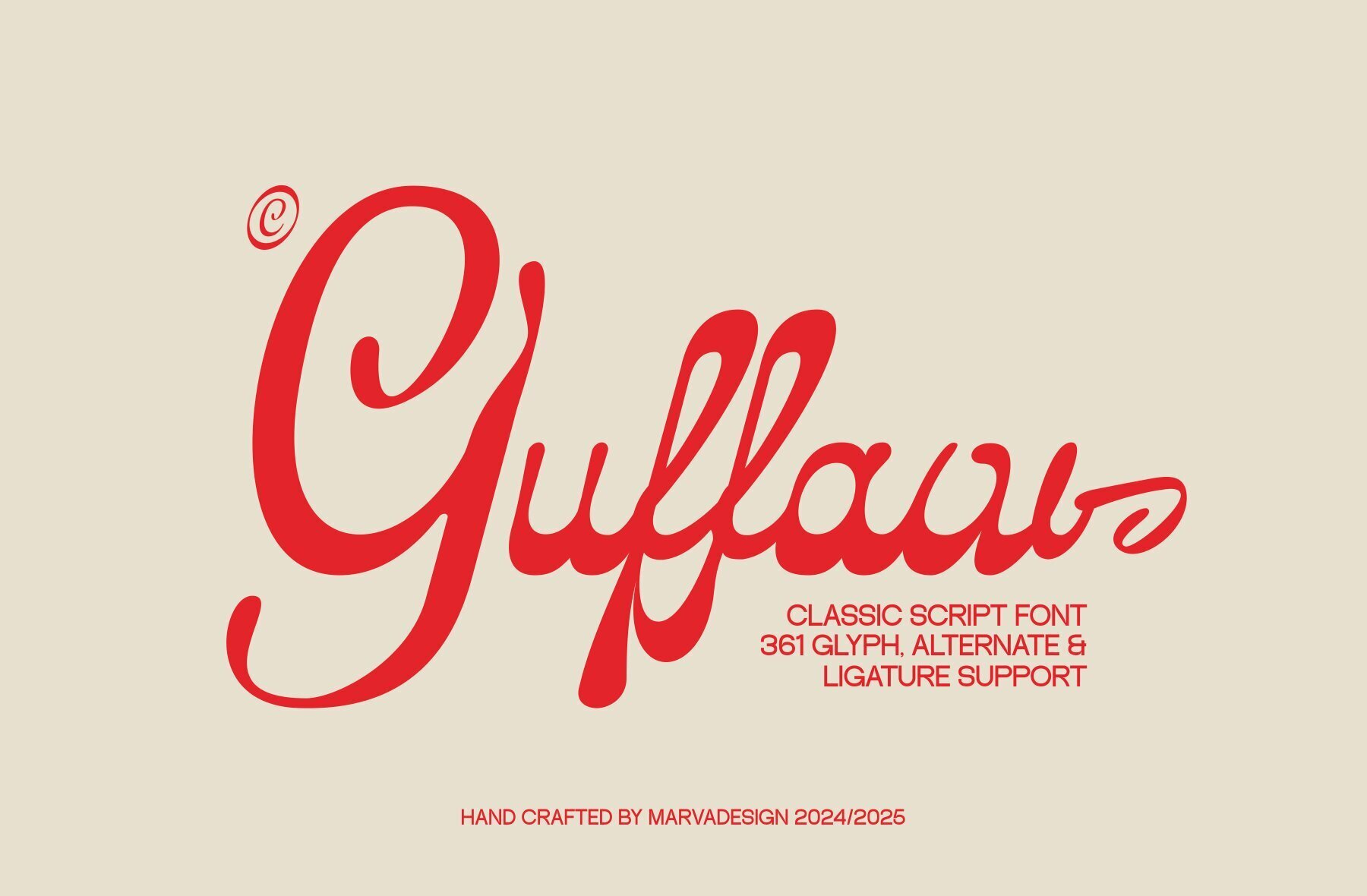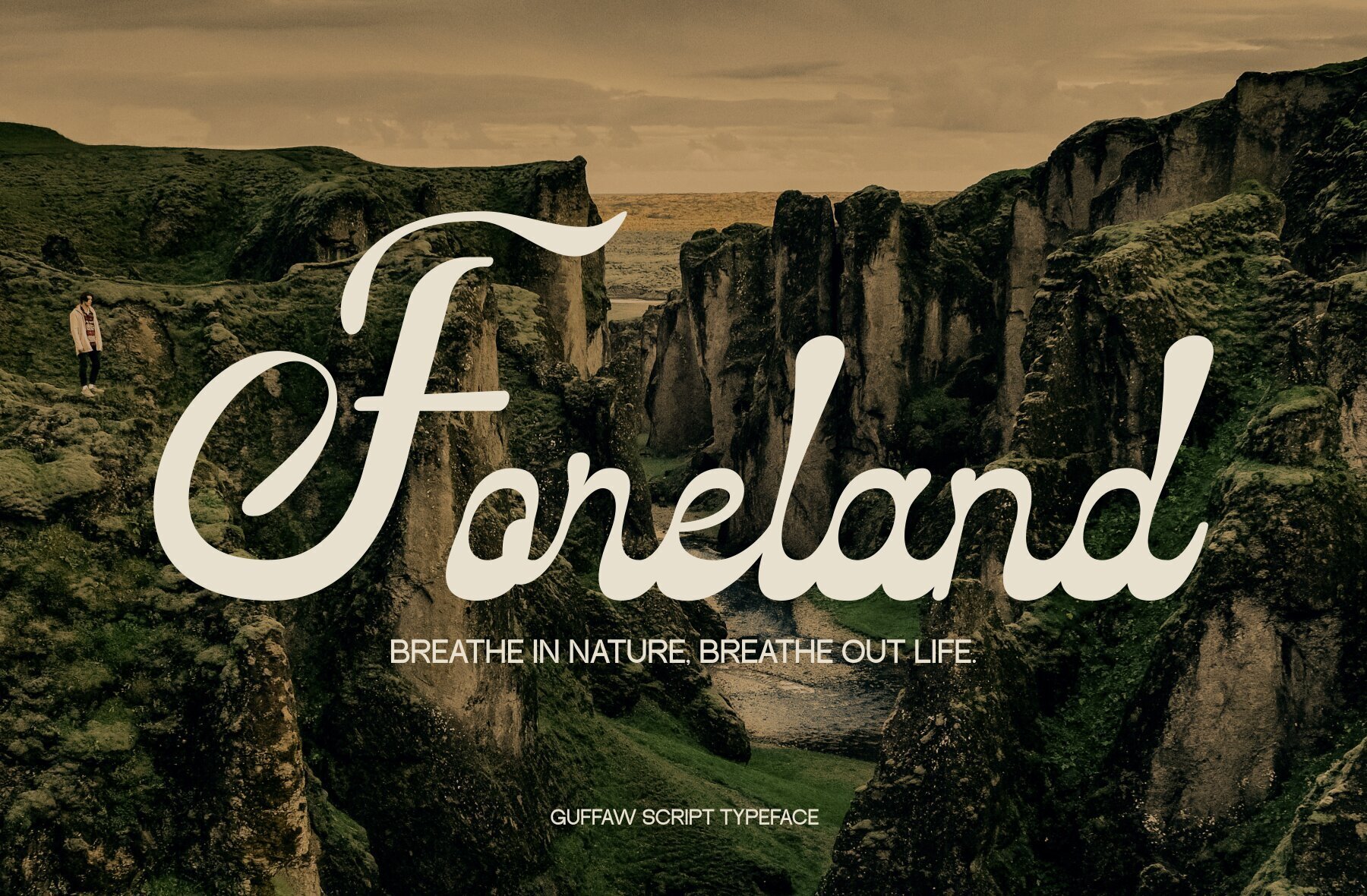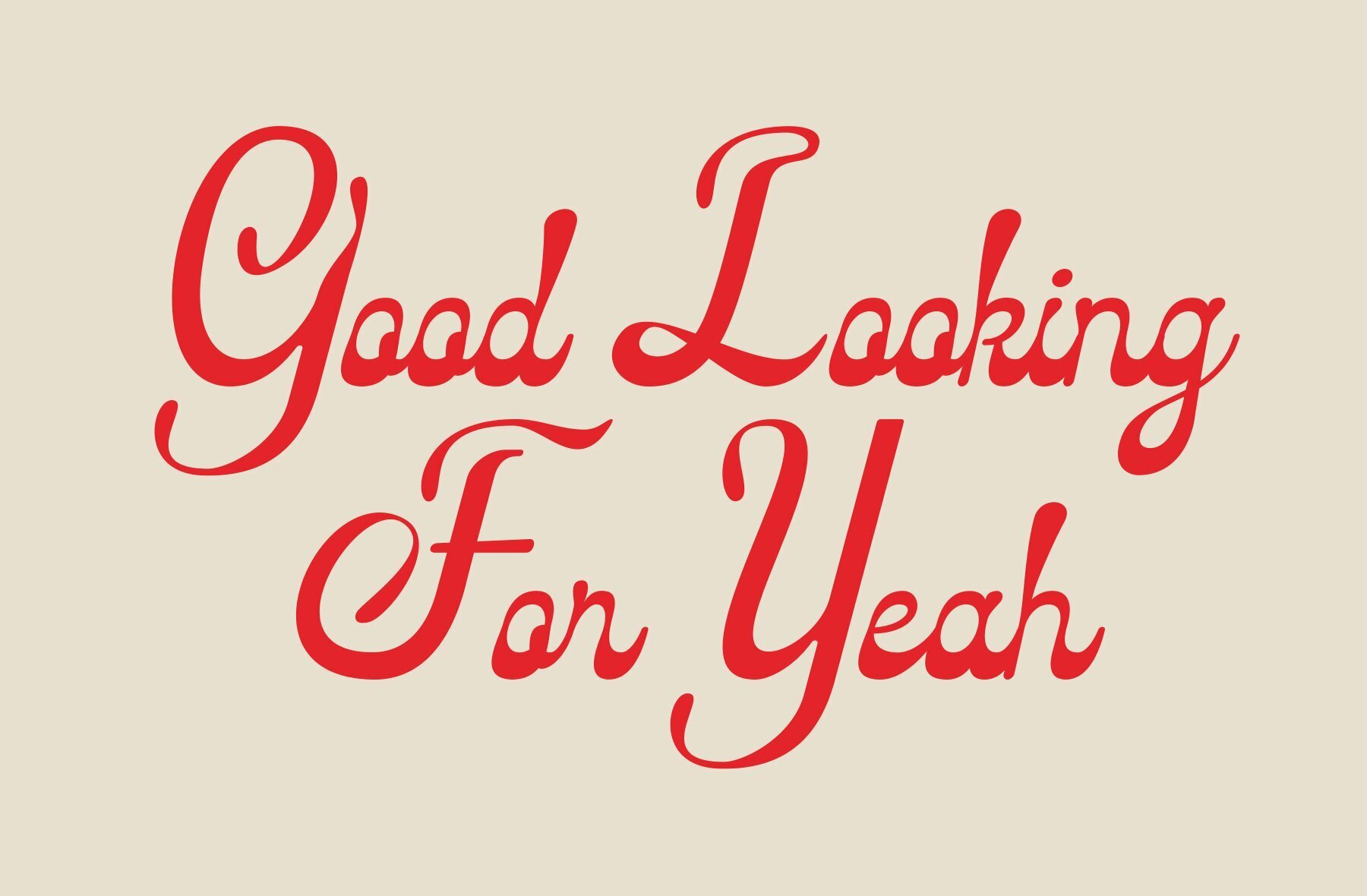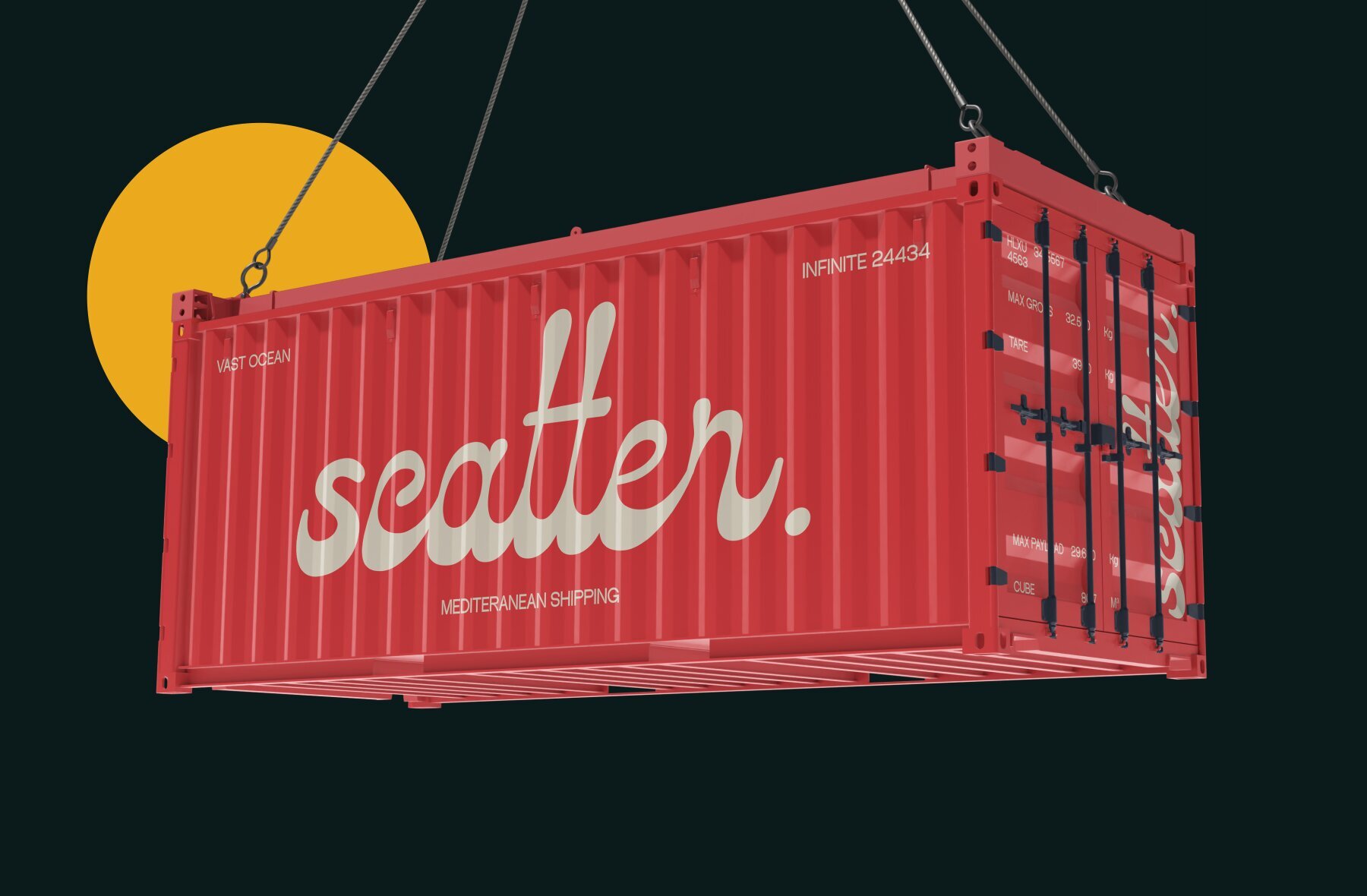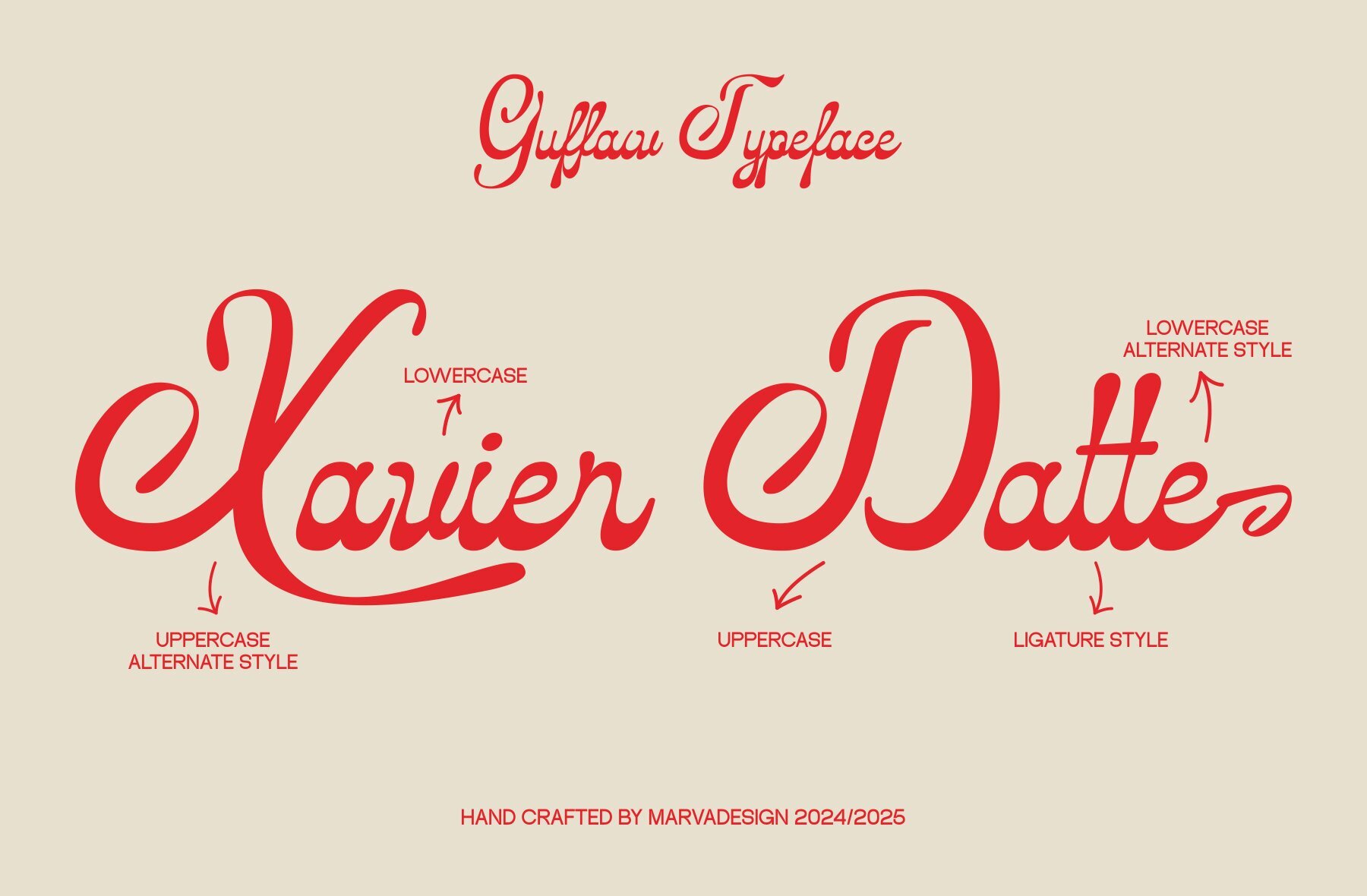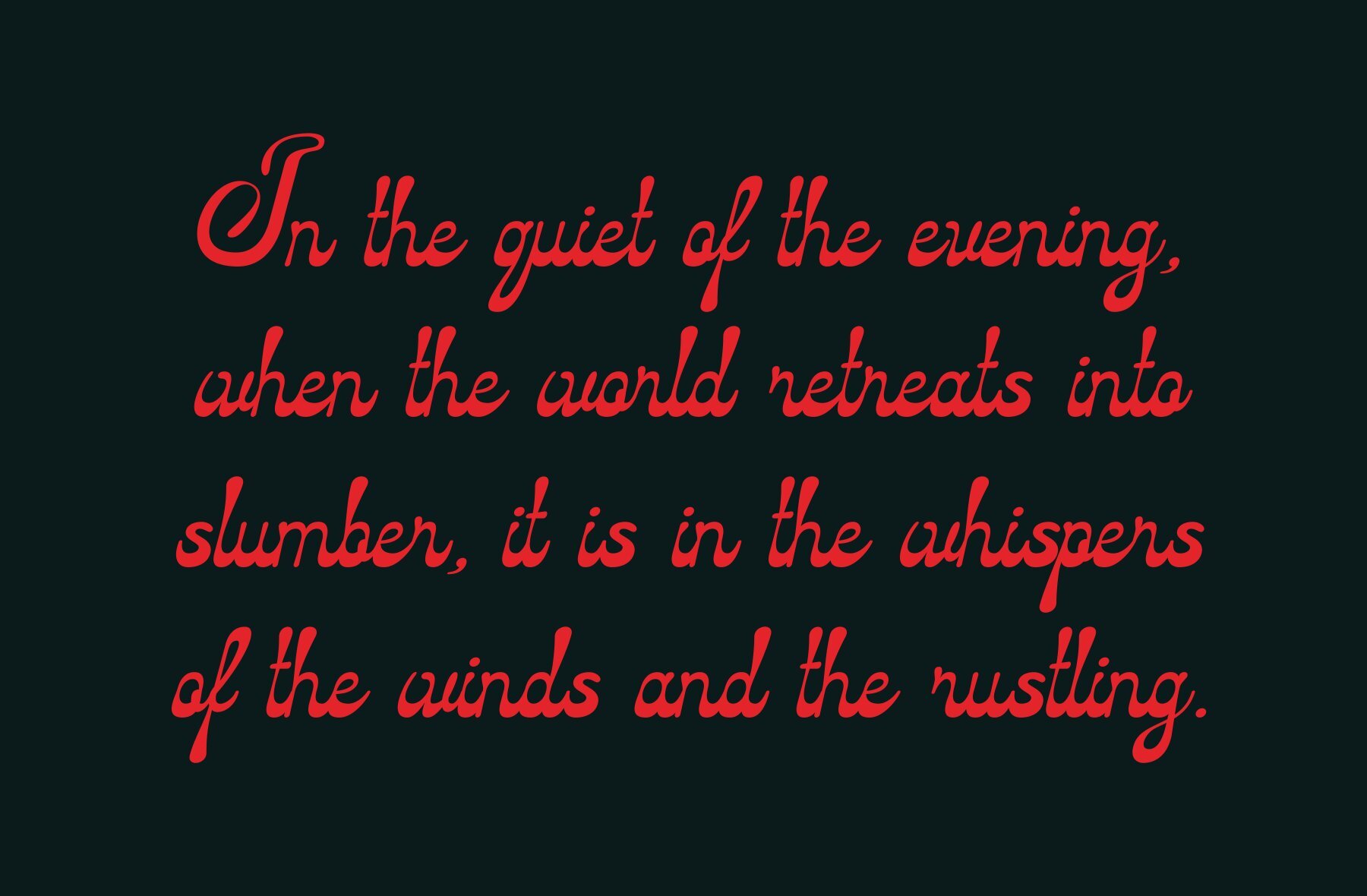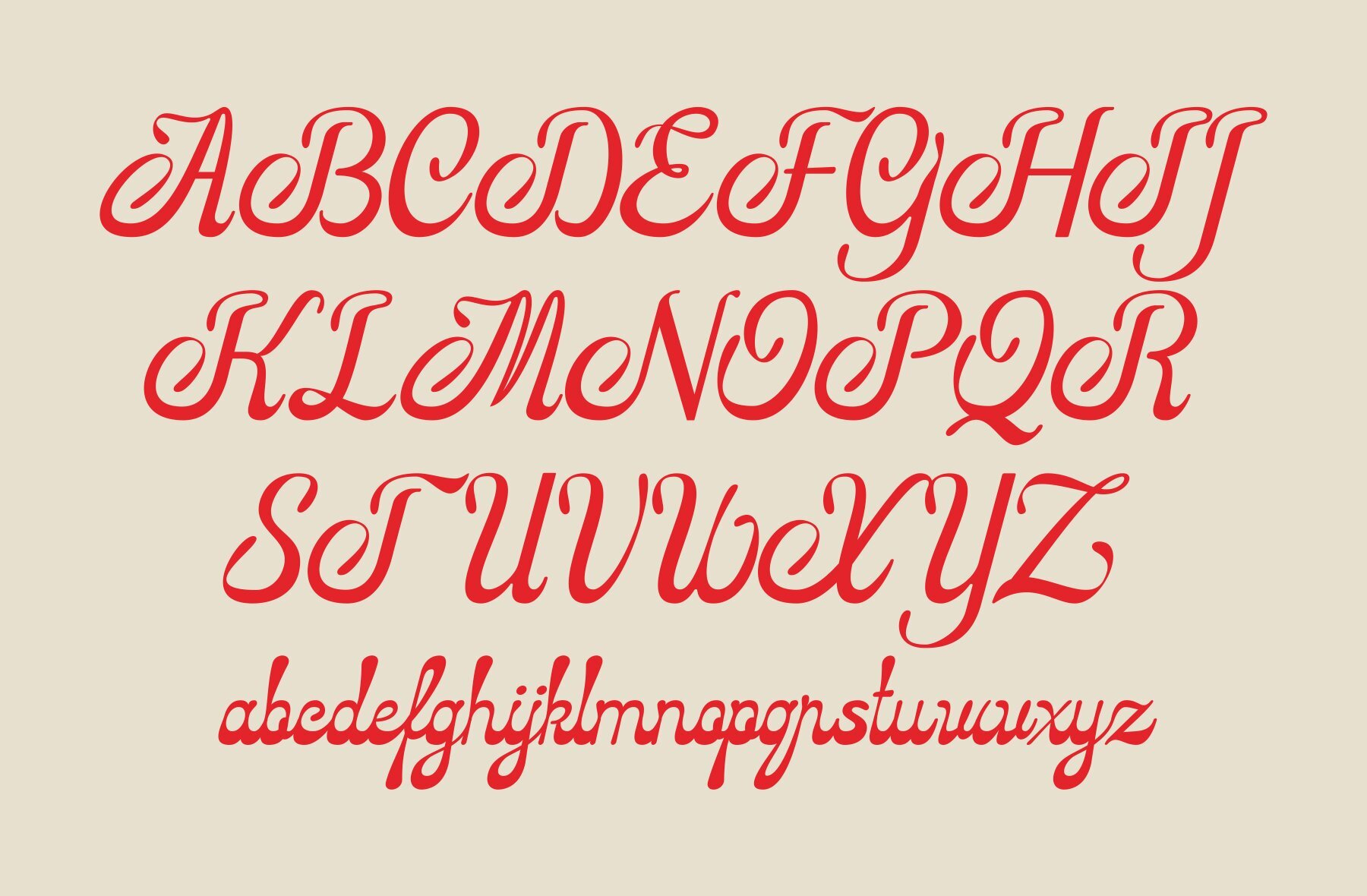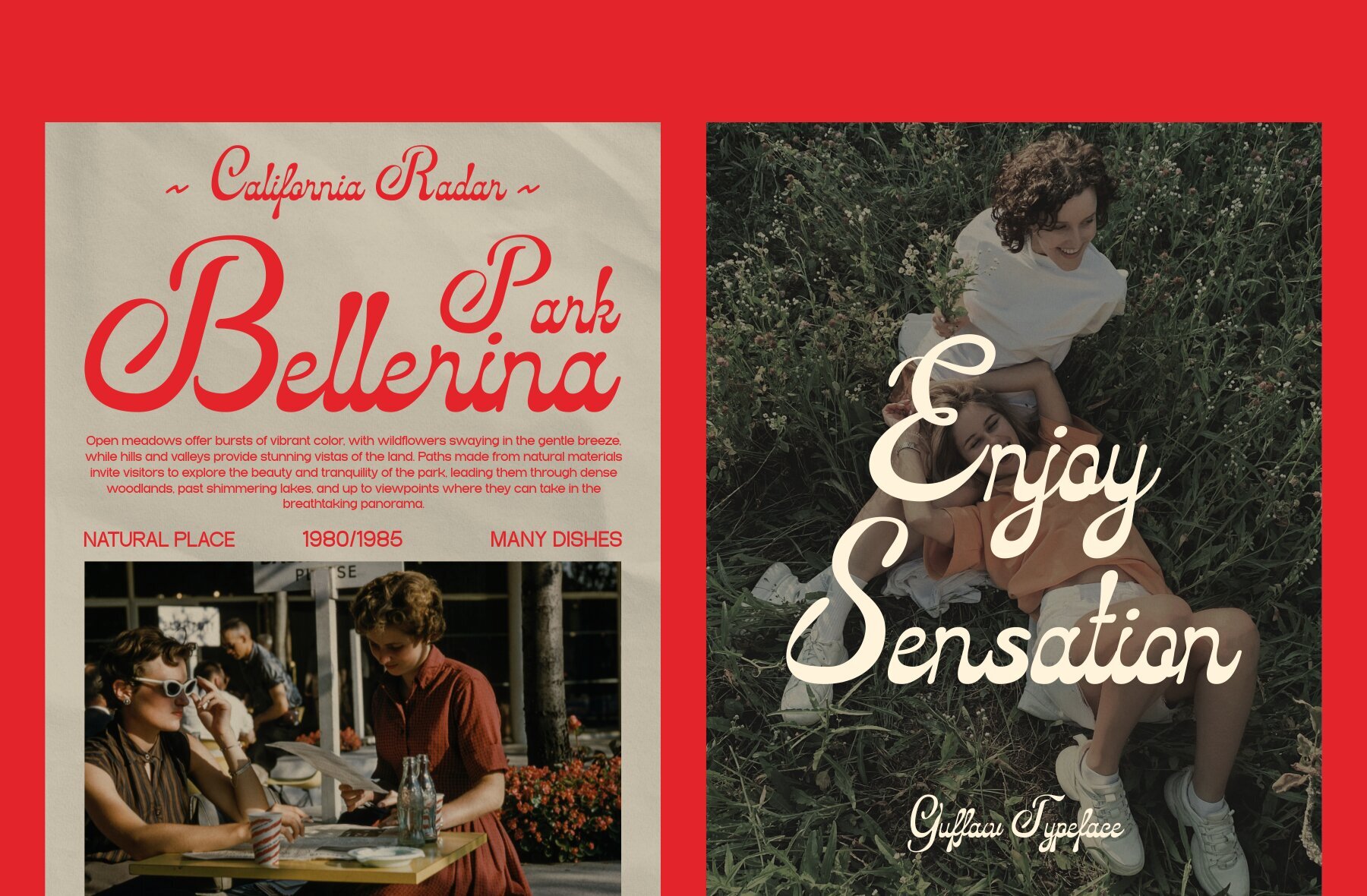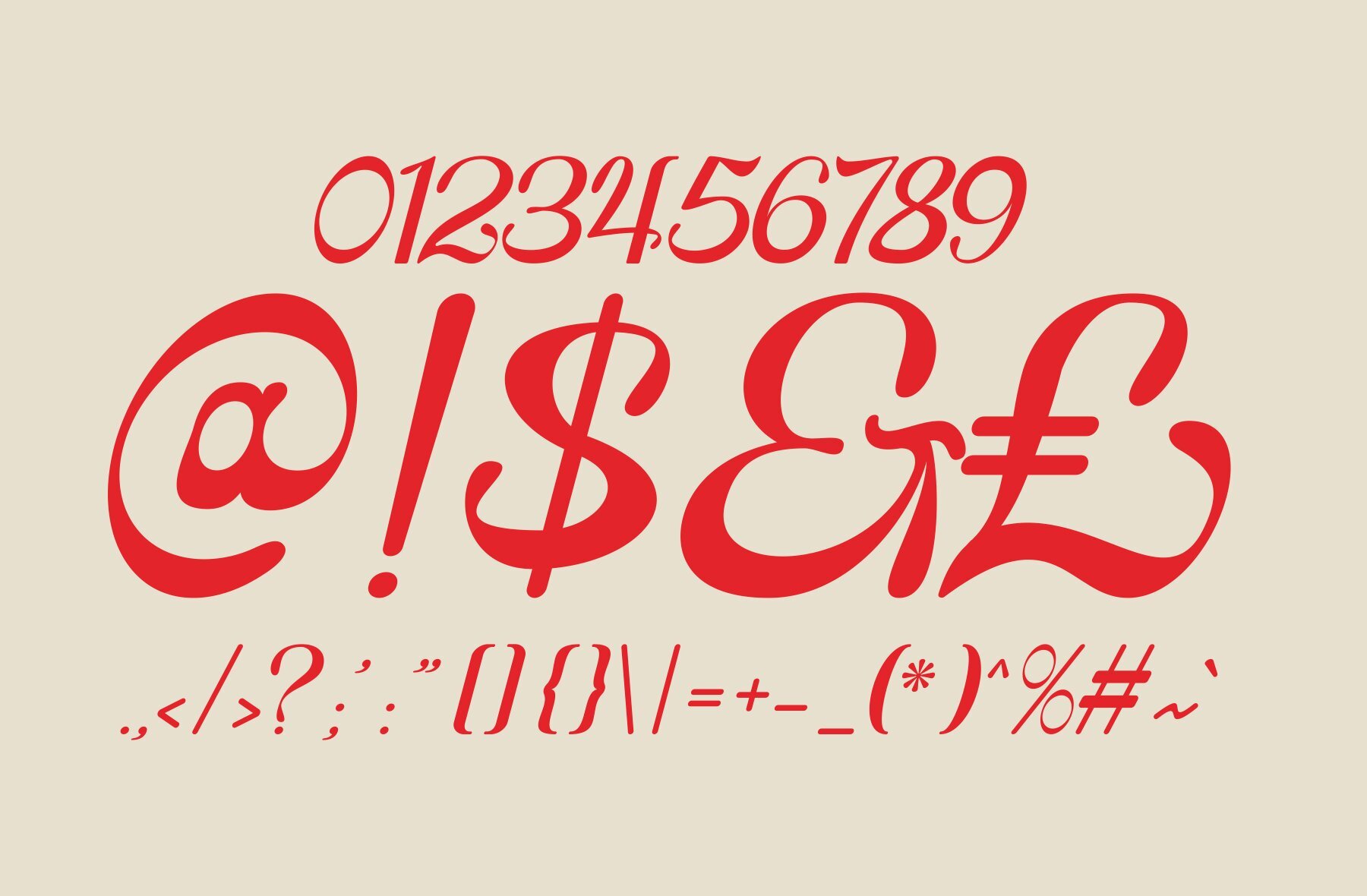
Guffaw Font
Guffaw
Guffaw Font offers a lively, expressive handwritten script style that infuses retro charm with groovy aesthetics. Its fluid strokes and organic letterforms exude playfulness and nostalgia, perfect for designs aiming for a vintage yet vibrant look. This typeface combines classic influences with a modern edge, crafting a distinctive personality that is both timeless and fresh.
Ideal for projects that desire a unique blend of retro and contemporary elements, Guffaw Font enhances creative works with its dynamic character. Its expressive nature makes it suitable for a variety of applications, from branding and packaging to posters and social media graphics. With its playful and nostalgic touch, this typeface adds an engaging visual flair, captivating audiences with its delightful appeal.